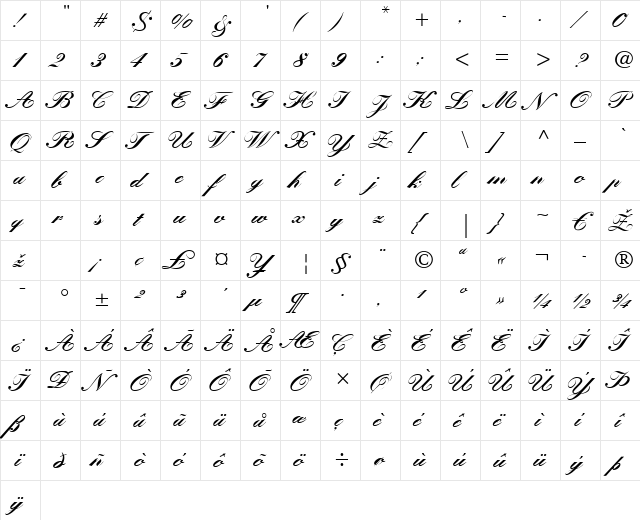
KuenstlerScript LT Medium Bold
Design Context for KuenstlerScript LT Medium Typeface
KuenstlerScript LT Medium flows with the natural rhythm of handwritten lettering, making it ideal for designs that call for warmth and personal expression. The heavy weight commands attention and anchors typographic hierarchies.
Font Pairing: Combine KuenstlerScript LT Medium with a simple geometric sans for maximum contrast — the tension between flowing curves and clean structure is a classic typographic pairing.
Pro Tip: Use KuenstlerScript LT Medium for short runs of text — names, titles, or taglines. Extended body copy in script faces tires the eye quickly.